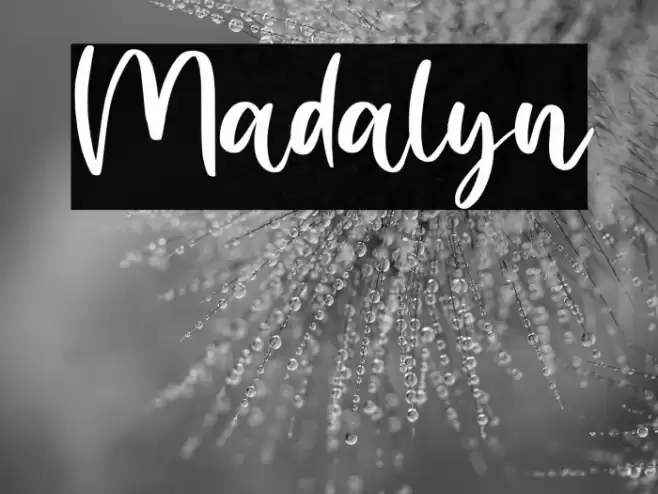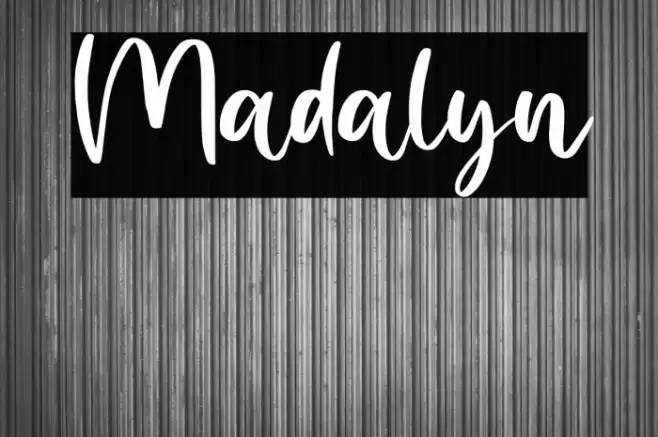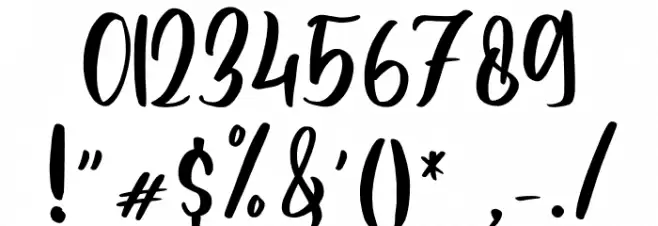
Madalyn Font
Madalyn Description
This font features a lively and expressive handwritten style, characterized by its flowing and interconnected letterforms. The uppercase letters are bold and dynamic, with a playful yet elegant flair, while the lowercase letters maintain a consistent rhythm and balance. The numerals are equally expressive, matching the overall style with their curvy and artistic design. Special characters are thoughtfully crafted, adding to the font's versatility. This font's energetic and personal touch makes it ideal for creative projects that require a humanistic and approachable feel.
A lively and expressive handwritten font with flowing, interconnected letterforms from Uncategorized fonts.